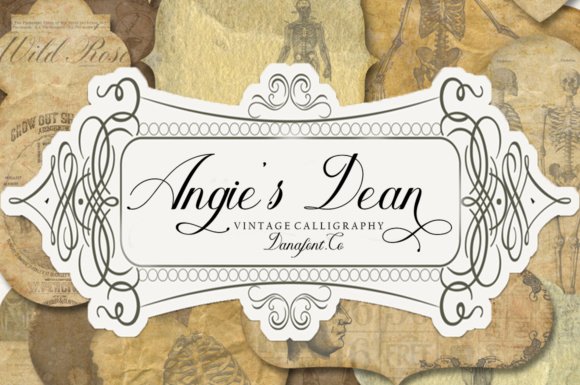
The Perfect Script: Unleashing the Elegance of Angie’s Dean Font
There’s something magical about the first time you put pen to paper, and the words begin to flow onto the page. The sound of the pen gliding across the paper, the feel of the ink flowing onto the page – it’s a sensory experience that never gets old. For designers, this moment is all about capturing the essence of a project and bringing it to life with the perfect font.
Angie’s Dean Font is a calligraphy script font designed to evoke the feeling of elegance and sophistication. With its beautiful alternative characters, it’s the perfect choice for designers looking to add a touch of class to their projects. Whether it’s a wedding invitation, a fashion label, or a romantic novel, Angie’s Dean Font is the ideal choice for anyone looking to create something truly special.
Angie’s Dean Font Key Features
- Size: The font comes in 6 weights, ranging from Light to Bold, each with its own unique characteristics and usage scenarios.
- Resolution: Angie’s Dean Font is optimized for high-resolution displays, making it perfect for use in digital media, such as websites, social media, and mobile apps.
- Unique Characteristics: Angie’s Dean Font features a distinctive, handwritten style with subtle imperfections and flair, adding a touch of personality to any design.
- X-Height: The x-height of Angie’s Dean Font is carefully designed to be legible and easy to read, even at small font sizes.
Review of Angie’s Dean Font
Angie’s Dean Font is a unique, hand-drawn script font that’s perfect for creating a personal and whimsical feel in your designs. ✨ I love how it adds a touch of elegance and sophistication to any project, making it ideal for weddings, baby showers, or other special occasions.
The font’s cursive nature makes it easy to read, even at larger font sizes, which is a major plus. ✨ Additionally, the font’s subtle flair and fluid connections between letters make it a joy to use for headings and titles.
- ⚠️ Limited character set: Angie’s Dean Font is not a full-featured font, which means it may not support all languages or have the full range of characters you need.
- ⚠️ Not suitable for body text: Due to its cursive nature, Angie’s Dean Font may be difficult to read at smaller font sizes or for large blocks of text.
Overall, I think Angie’s Dean Font is a fantastic addition to any designer’s toolkit. While it may have some limitations, its unique character and versatility make it a great choice for the right projects. With a little creative flair and planning, you can create truly stunning designs with this font.
Angie’s Dean Font is suitable for a wide range of applications, including:
– Advertising and marketing materials
– Editorial and publishing content
– Presentations and reports